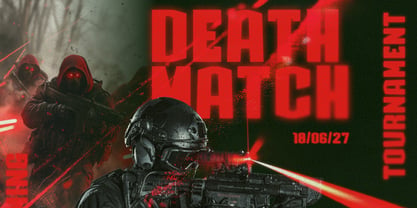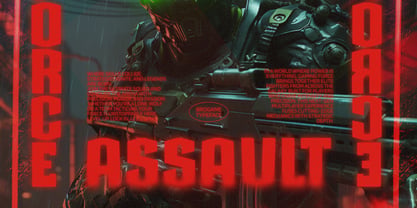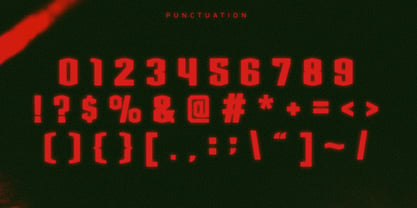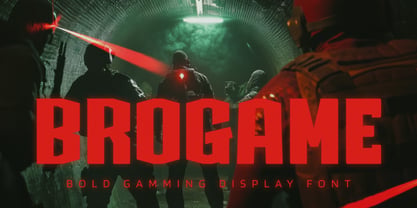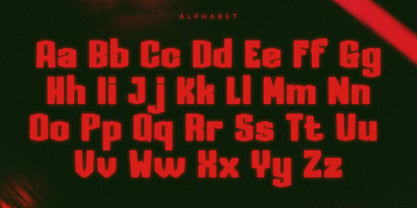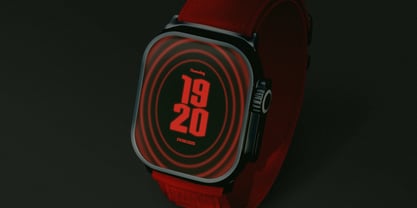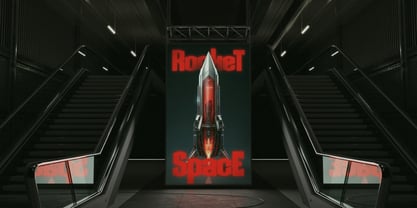
Brogame
by Vadova Std
Brogame is a bold, futuristic typeface tailored for high-impact gaming visuals and digital design. With its sharp lines and modern display aesthetic, it captures the essence of cyberpunk, sci-fi, and tech-driven themes. Perfect for eSports branding, user interfaces, game titles, and streaming overlays, this font delivers strong readability and a powerful presence. Brogame is a go-to choice for designers creating intense, tech-inspired visuals that resonate with the gaming community. Suitable For game titles, eSports branding, tech banners, sci-fi posters, HUD UI, cyberpunk layout, gamer merch, streaming overlay, digital ads, interface design, bold logos, futuristic cover, VR content, modern app, font showcase, cyber warfare, control panel, tactical visuals, neon flyer, arcade graphics